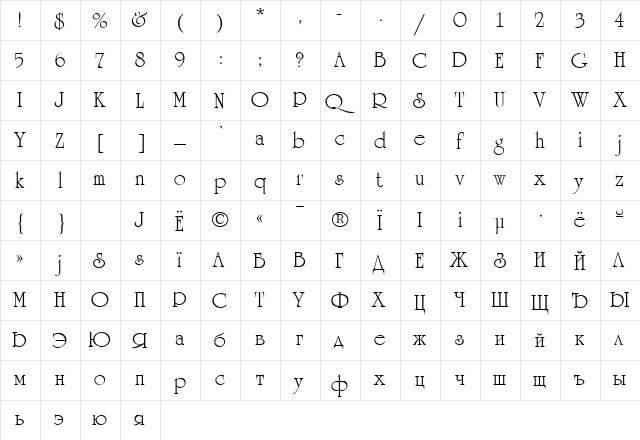
AGUniversityCyr-Roman Normal
Design Context for AGUniversityCyr-Roman Typeface
AGUniversityCyr-Roman takes a measured approach to typography — its balanced proportions and neutral character make it a reliable workhorse for both digital and print work.